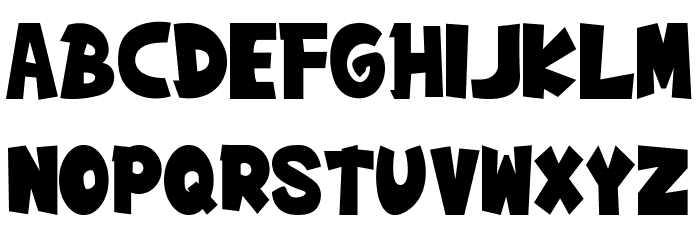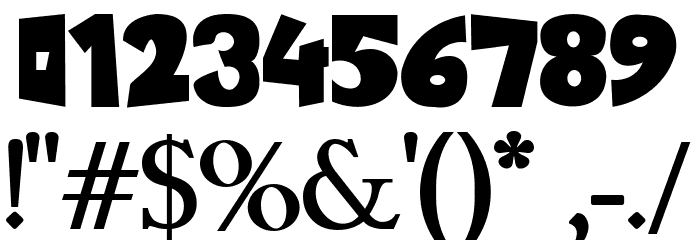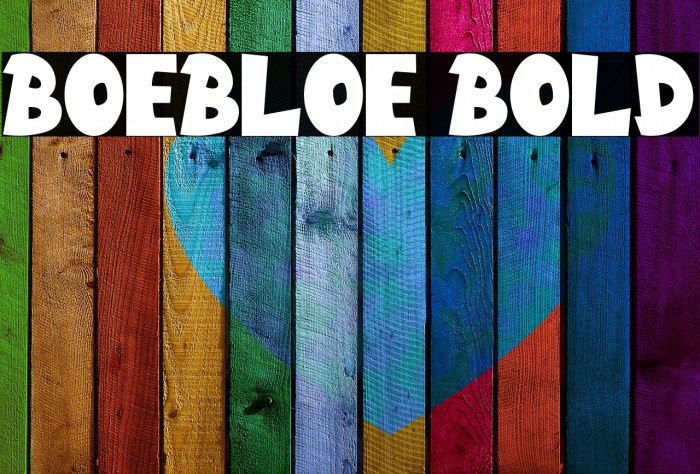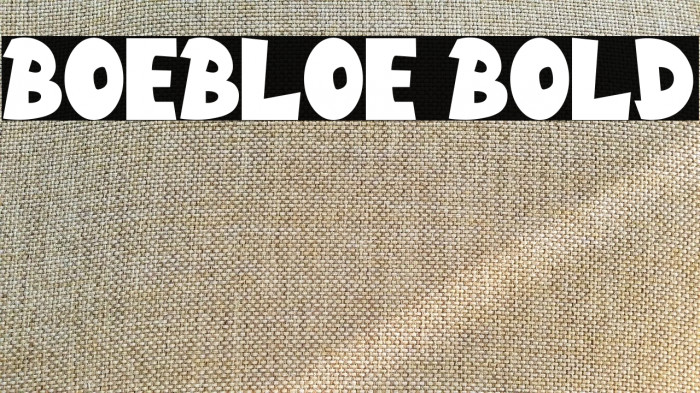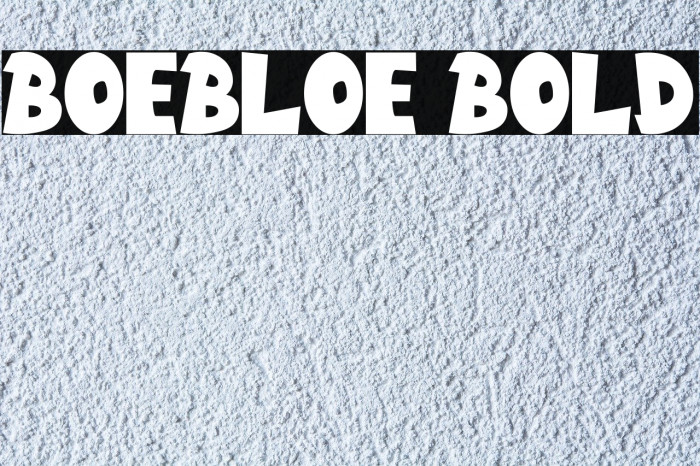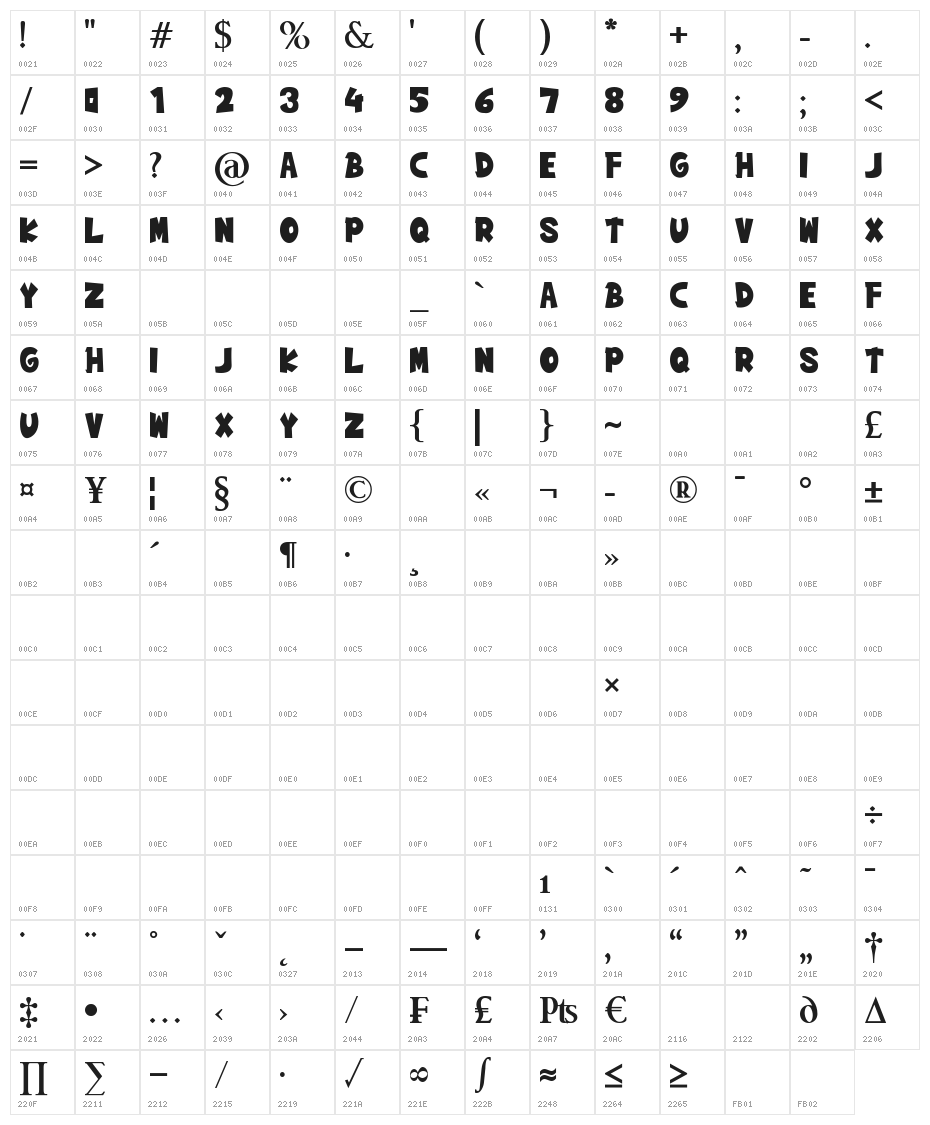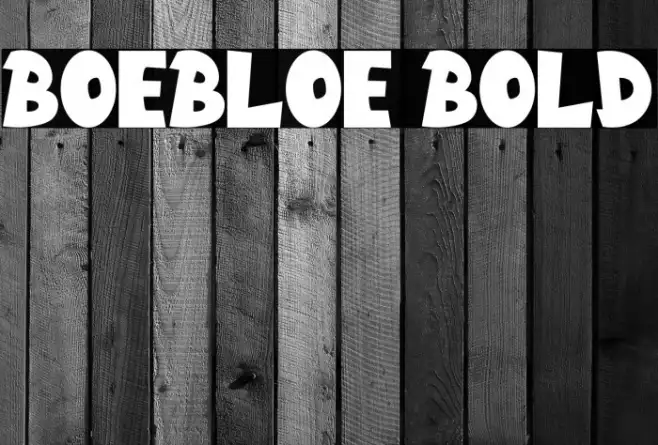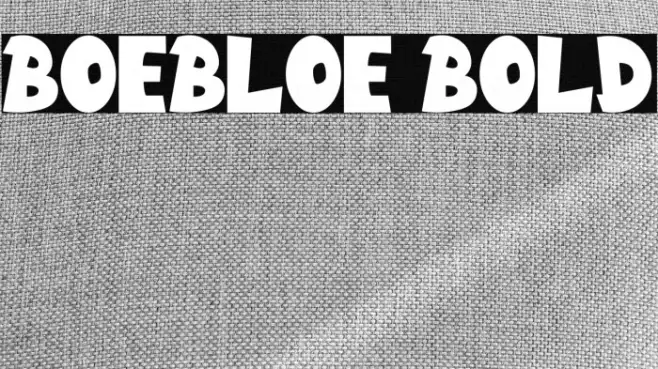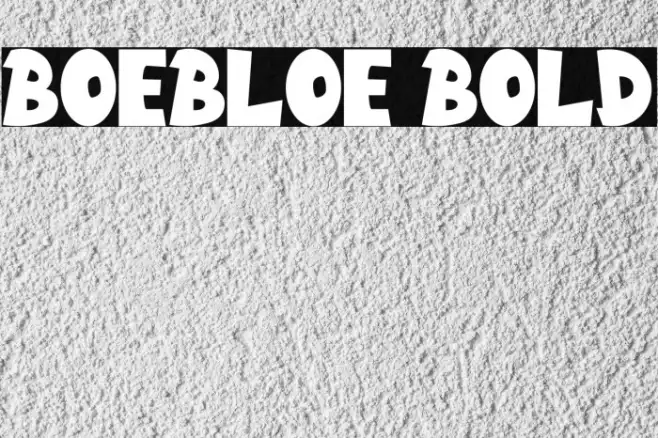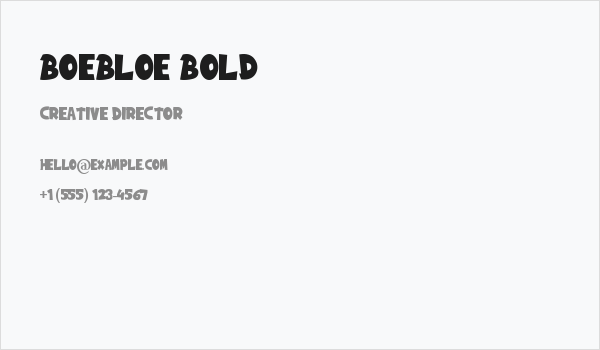
Boebloe Bold Font
This bold and playful font features thick, rounded characters with a whimsical style. The letters are slightly irregular, giving it a hand-drawn appearance that adds a sense of fun and creativity. The uppercase and lowercase letters maintain a consistent weight, while the numbers and special characters complement the overall design. The font's boldness ensures high visibility, making it suitable for eye-catching designs. Its unique style is perfect for projects that require a touch of humor and personality.
A bold, playful font with thick, rounded characters and a whimsical style.
- Proposed Projects: Ideal for children's books, comic strips, playful branding, and party invitations.
- Overall Style: Playful, Whimsical